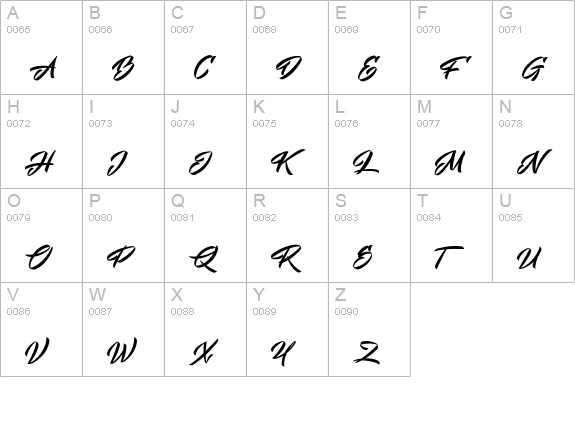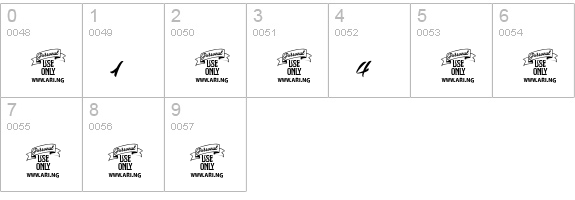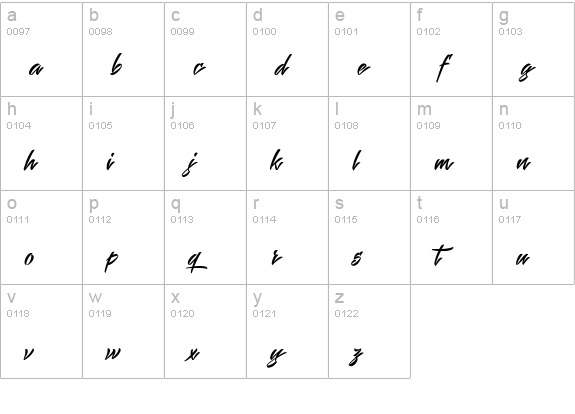
Mistuki 4 PERSONAL USE Font Details
Introducing Mistuki 4 PERSONAL USE font, a stunning typeface that exudes elegance and sophistication. This font is perfect for adding a touch of class to your personal projects. Whether you're designing invitations, crafting unique logos, or creating eye-catching social media graphics, Mistuki 4 PERSONAL USE font will elevate your designs to new heights. With its clean lines and graceful curves, Mistuki 4 PERSONAL USE font captures attention effortlessly. Its versatility allows it to be used in a variety of contexts, from modern and minimalist designs to more traditional and ornate styles. This font truly shines in headlines, titles, and other prominent text elements, making a bold statement while maintaining a sense of refinement. One of the most remarkable aspects of Mistuki 4 PERSONAL USE font is that it is freely available to download at FontsMarket.com. This means that you can enjoy the beauty and elegance of this font without any cost. Whether you're a professional designer or a creative enthusiast, having access to high-quality fonts like Mistuki 4 PERSONAL USE font can greatly enhance your design projects. So why wait? Enhance your personal projects with Mistuki 4 PERSONAL USE font today. Download it for free at FontsMarket.com and unlock a world of possibilities for your creative endeavors. Let Mistuki 4 PERSONAL USE font be the secret weapon in your design toolkit, adding a touch of sophistication and class to every project you undertake.